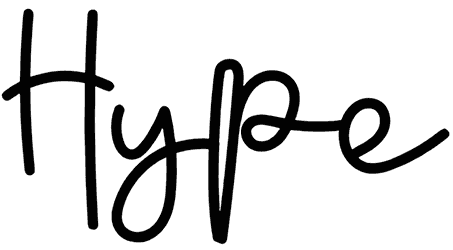
Hype Font
If you want a playful and soft look for your words, this script font might be the perfect thing for you. Every character in the Hype font is built in chaos with handwritten marker effects on them that give a youthful, bright, and cheery feeling to your writing.
You can use this bold and continuous font for teenage movie and book titles, Halloween posters and flyers, channel banners, and graffiti texts, and have the perfect look through its uneven elements.